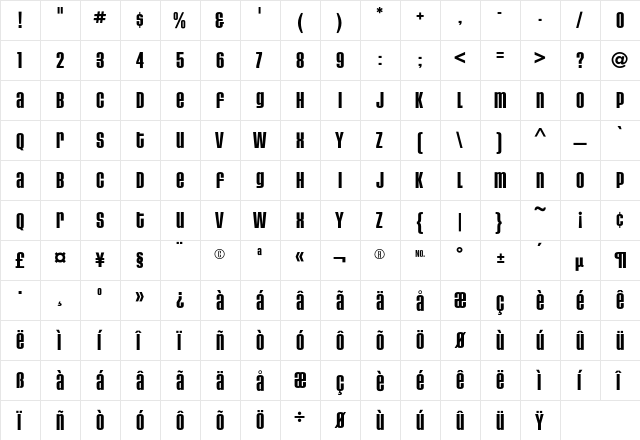
HouseGothic BoldAltCaps
Design Context for HouseGothic Typeface
HouseGothic has the quiet confidence of well-executed sans-serif typography: versatile, unobtrusive, and dependable at any size. The heavy weight commands attention and anchors typographic hierarchies.
Well-suited to navigation labels, product packaging, and anywhere legibility at scale is essential.
Font Pairing: Use HouseGothic for headlines alongside a lighter-weight sans or serif for body copy to establish clear visual hierarchy.
Pro Tip: Use HouseGothic for UI labels, navigation, and short-form body copy where clean legibility is the priority.